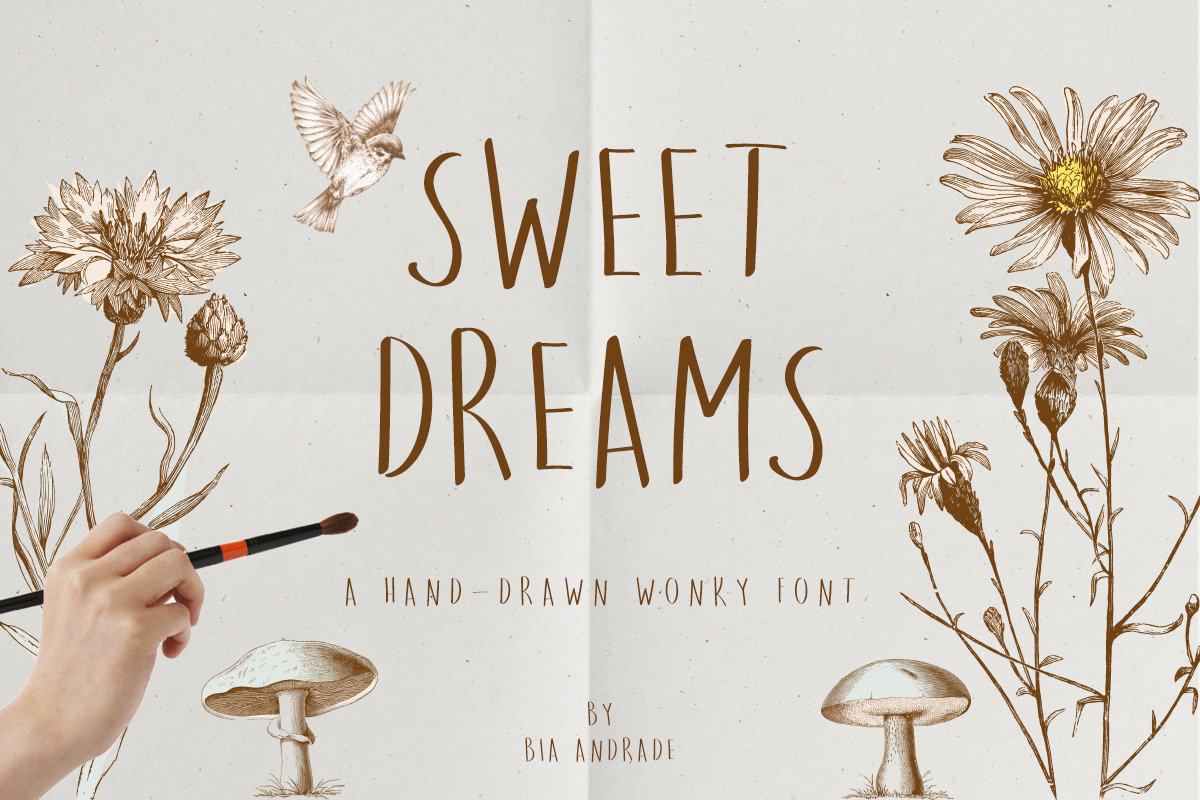
Sweet Dreams a hand-drawn wonky font
Introducing Sweet Dreams: a hand-drawn wonky font: ALL CAPS!
Sweet Dreams is a classic handwritten font, carefully handcrafted to become a true favorite. Its casual charm makes it appear wonderfully down-to-earth, readable and, ultimately, incredibly versatile. Whether you’re looking for fonts for Instagram or calligraphy scripts for DIY projects, Sweet Dreams will turn any creative idea into a true piece of art!
As the nature of the characters is hand-drawn some "wonky" lines might be found which helps to add another touch of organic in the font that resonates with my personal style!